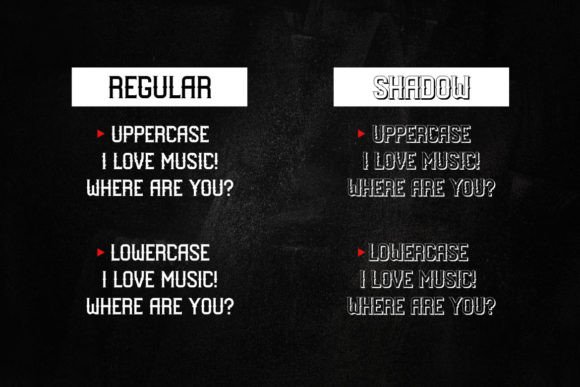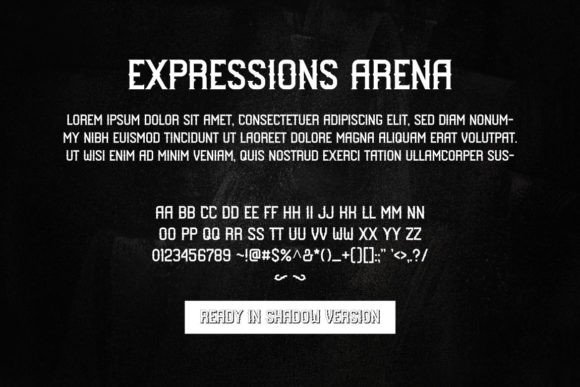
Unleash Your Creativity with the Ultimate Display Font
Have you ever been stuck on a design project, staring at a blank canvas, desperately searching for the perfect font to bring your vision to life? We’ve all been there. The struggle is real, but the solution is simpler than you think. Enter the Arena Font, a stylish and incredibly unique display font that will elevate any creation and leave a lasting impression.
With its sleek and modern design, the Arena Font is perfect for designers looking to add a touch of sophistication to their work. Whether you’re creating a logo, a brochure, or a social media post, this font has the potential to take your design to the next level. Its versatility and style make it an invaluable asset to any designer’s library, and we’re excited to share its possibilities with you.
Arena Font Key Features
- Font Family: Arena Font is a sans-serif font family designed for use in digital applications.
- Character Set: The Arena Font family includes a comprehensive character set, including Latin, Cyrillic, and Greek alphabets, as well as a range of punctuation and symbol glyphs.
- Unique Characteristics: Arena Font features a unique blend of modern and geometric elements, with clean lines, rounded edges, and a high level of legibility.
Arena Font Review
I recently had the chance to work with the Arena font, and I’m excited to share my thoughts with you. Overall, it’s a solid choice for any design project.
- The Arena font has a clean and modern design that’s perfect for contemporary projects.
- The font is highly legible, making it great for body text and headlines alike.
- The font family includes a wide range of weights and styles, giving you plenty of options for customization.
- The font may not be the best choice for projects that require a more formal or traditional tone.
- The font’s design can make it difficult to read in certain font sizes or line heights.
Overall, I’d give the Arena font 4 out of 5 stars. It’s a great choice for modern projects, but it may not be the best fit for every design task. With some careful consideration of its limitations, however, it can be a valuable addition to any designer’s toolkit.
Arena Font is ideal for creating bold and modern designs, such as:
– Sports branding and marketing materials
– Event signage and banners
– Fashion and lifestyle branding
– Video game and esports graphics
Tips for getting the most out of Arena Font:
– Use it in combination with bold and bright colors to create a striking visual effect.
– Experiment with different font sizes and styles to create a dynamic and engaging design.
– Use Arena Font to create a consistent brand identity across multiple platforms.